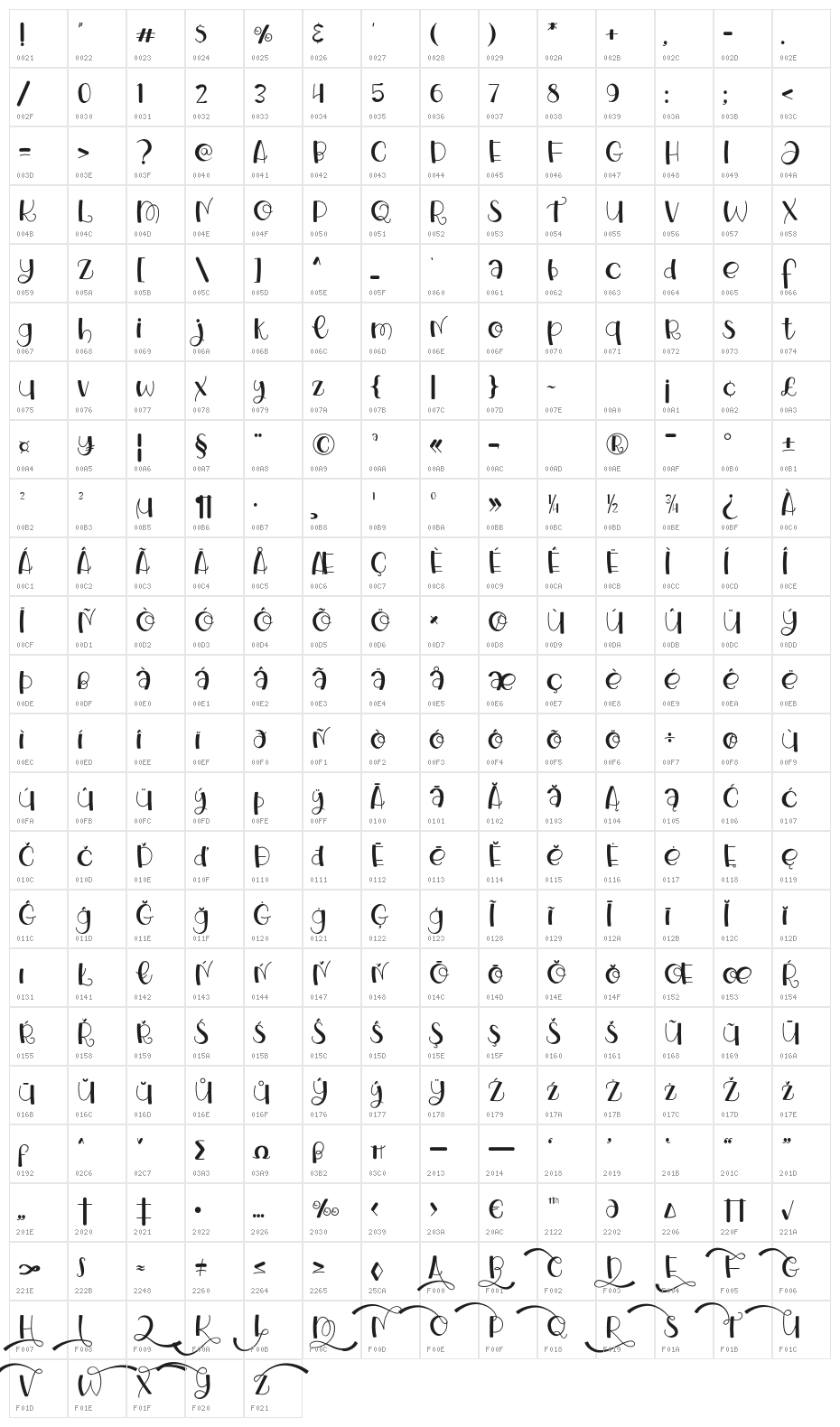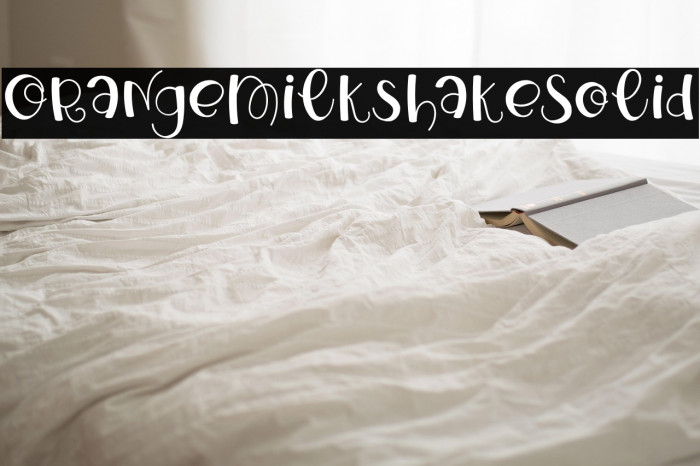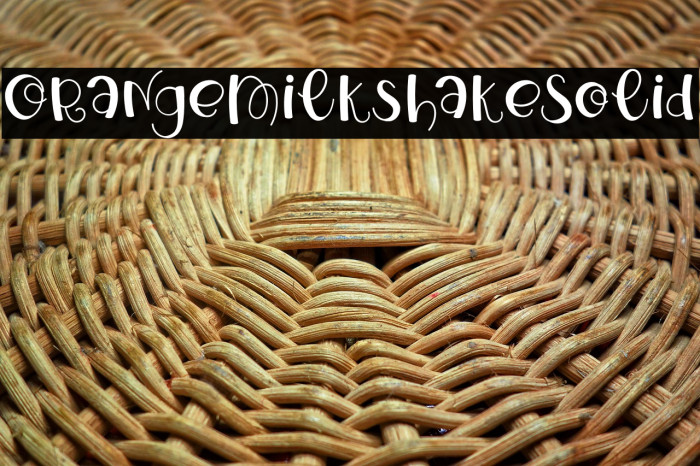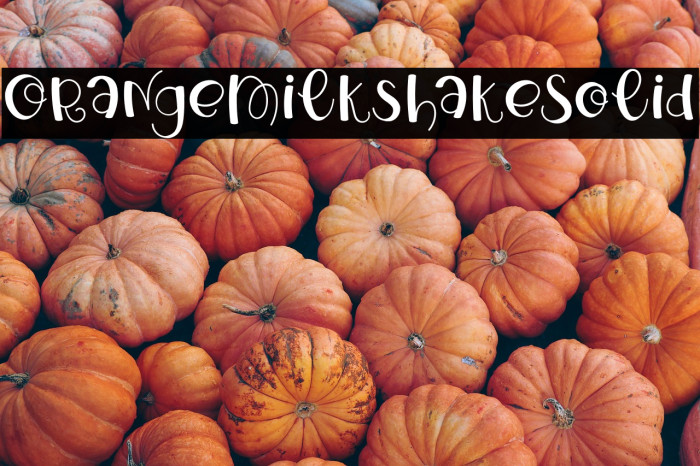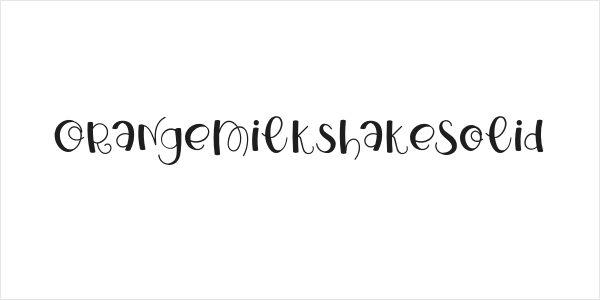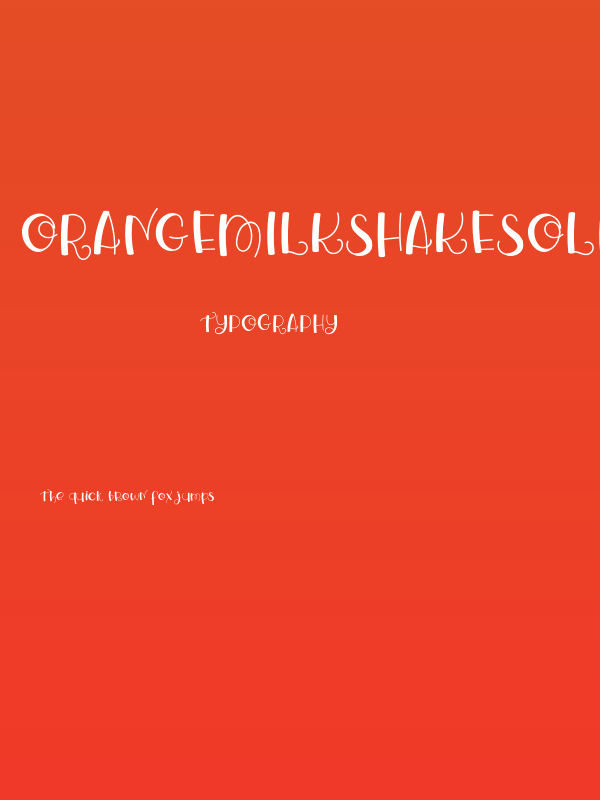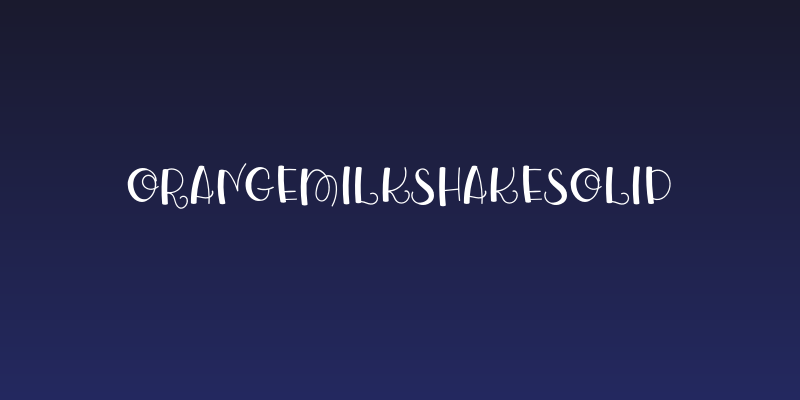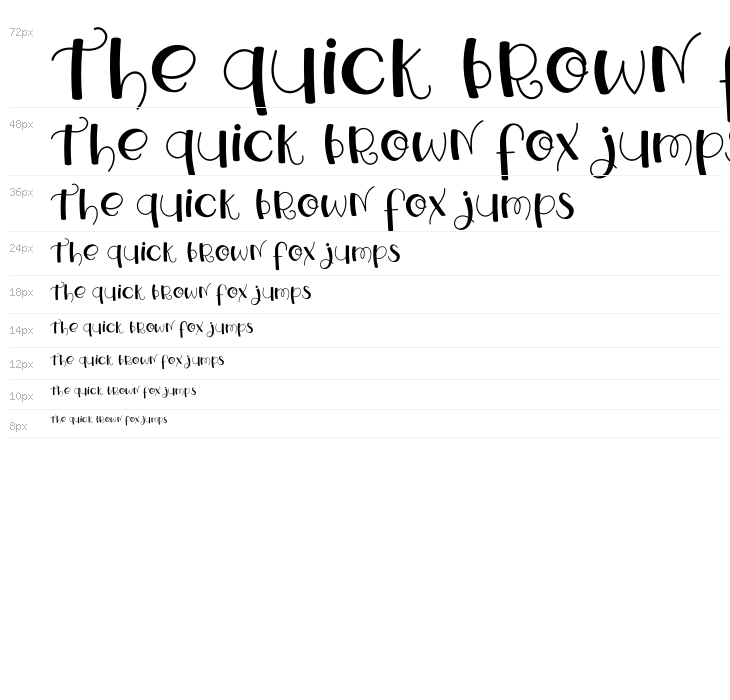
OrangeMilkshakeSolid Font
OrangeMilkshakeSolid Description
This playful and whimsical font features a unique blend of curves and loops, giving it a lively and energetic feel. The uppercase letters are bold and expressive, with a mix of thick and thin strokes that add a dynamic contrast. The lowercase letters maintain the same playful style, with some characters featuring distinctive swirls and curls. The numbers are equally bold, with a consistent style that complements the letters. Special characters are creatively designed, adding to the overall charm of the font. This font is perfect for projects that require a fun and engaging look, such as children's books, playful branding, or creative invitations.
| Overall Style | Playful, Whimsical |
| Use Case | Headlines, Logos, Invitations |
| Proposed Projects | Children's books, playful branding, creative invitations, party flyers, and whimsical posters. |